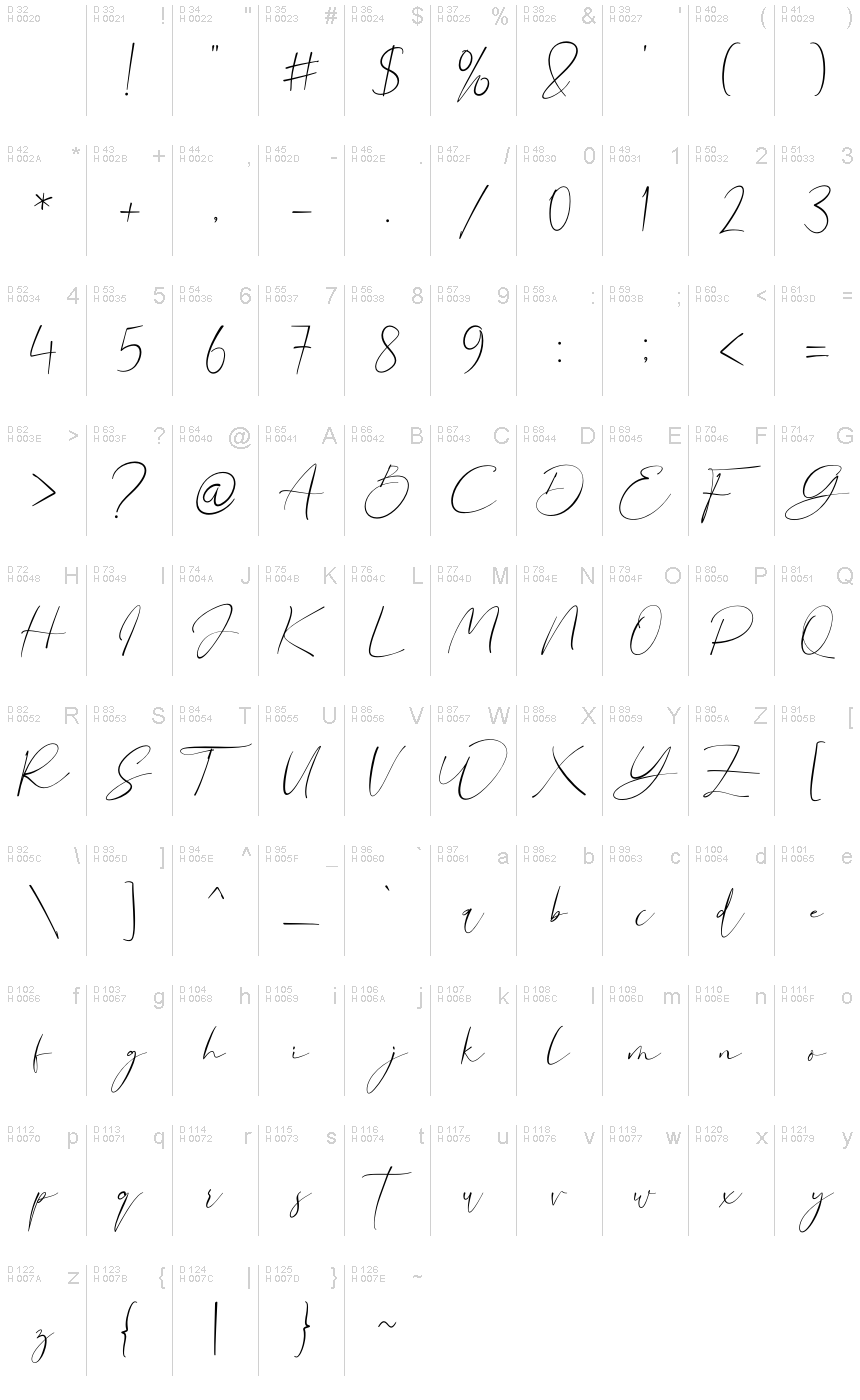
Sonia Evans
Sonia Evans, designed by Winarko, is a font that exudes a personal touch with its handwritten style and extra-light weight. Its elegant curves and fine lines resemble delicate penmanship, bringing an intimate and bespoke aesthetic to any project. The distinct flow of the characters in Sonia Evans lends itself to designs that require a touch of sophistication and subtlety.
This font's graceful appearance makes it ideal for invitations, branding, or editorial work where a sense of charm and individuality is paramount. With its airy presence, Sonia Evans can elevate the visual narrative of creative endeavors by adding a handcrafted essence that resonates with viewers seeking authenticity in typography. Whether used for digital media or print, this font offers versatility while maintaining its distinct stylish flair.